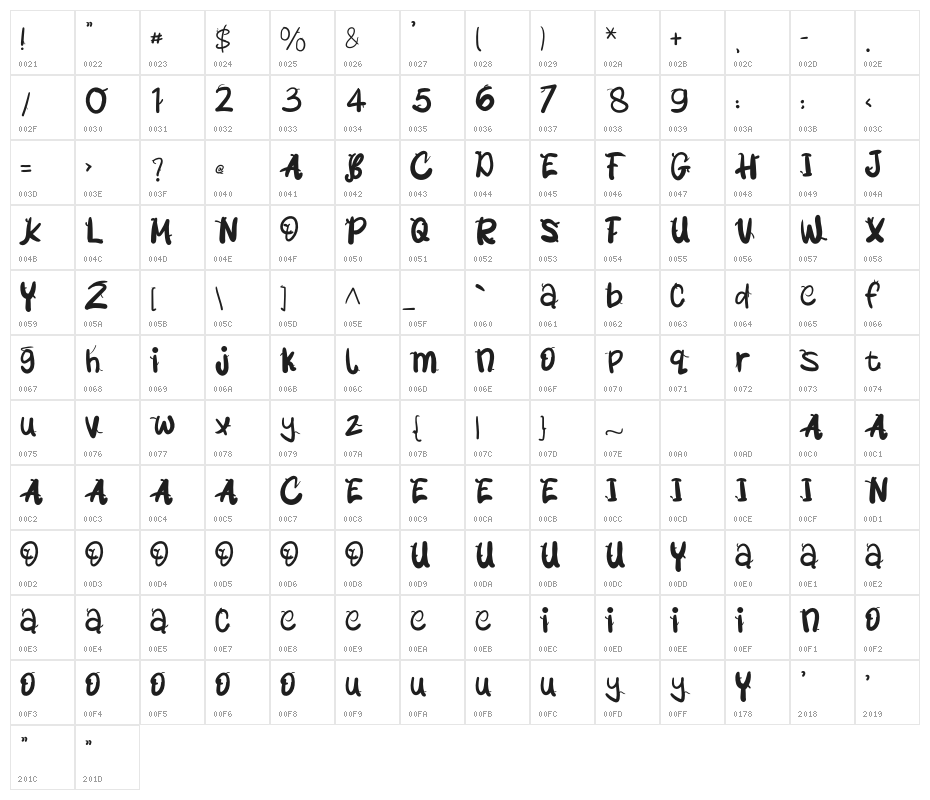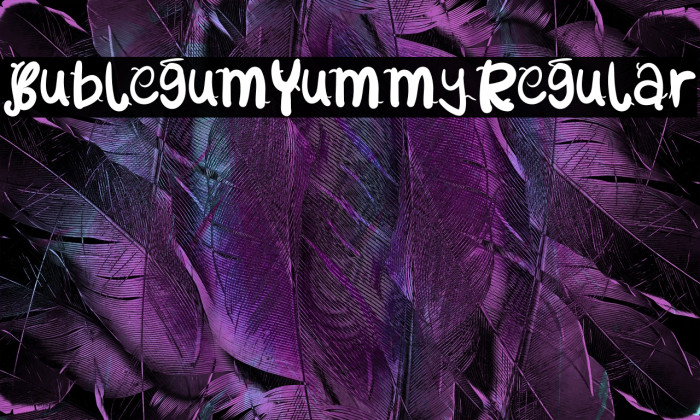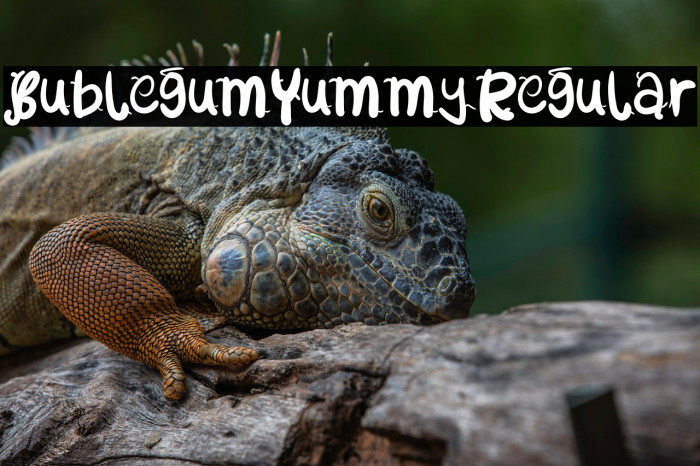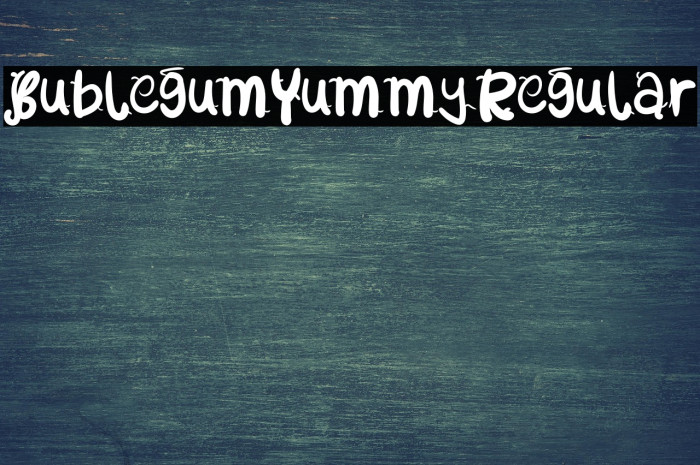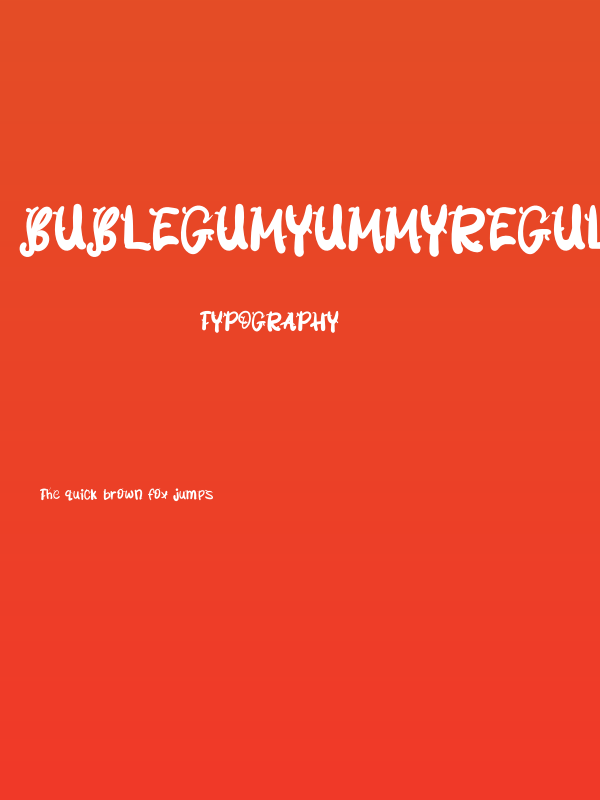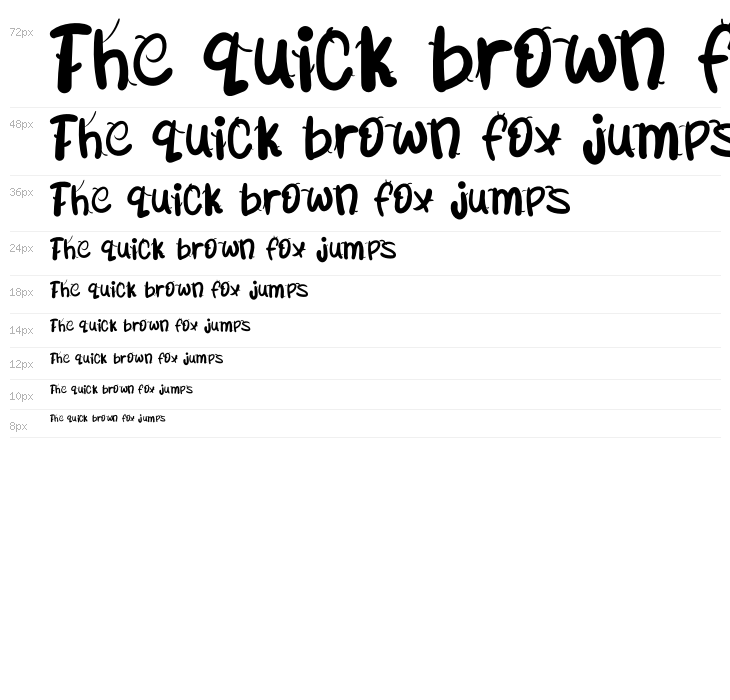
BublegumYummyRegular Font
BublegumYummyRegular Description
This playful and bold font features a bubbly, handwritten style that exudes a sense of fun and whimsy. The characters are rounded and thick, with a consistent stroke width that gives it a cohesive look. The uppercase and lowercase letters maintain a casual, informal appearance, while the numbers and special characters complement the overall style. The font's energetic and lively design makes it perfect for projects that require a touch of personality and flair.
| Proposed Projects | Ideal for children's book covers, playful branding, party invitations, and creative social media graphics. |